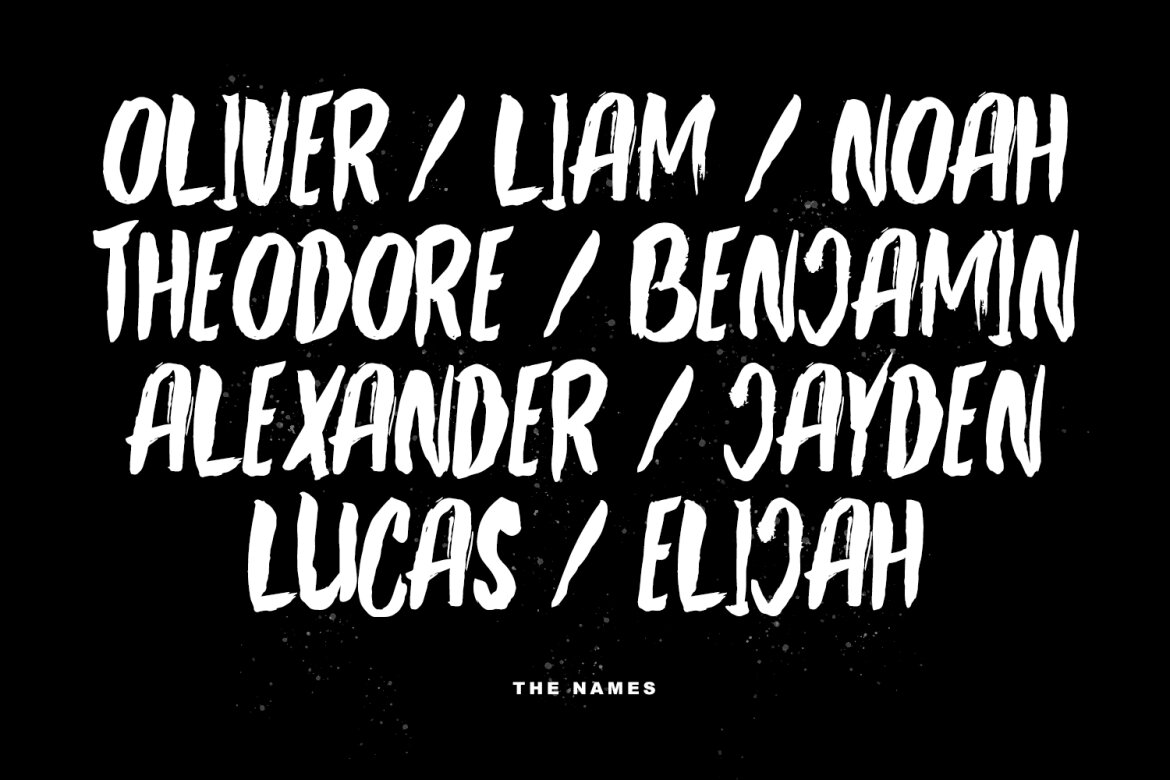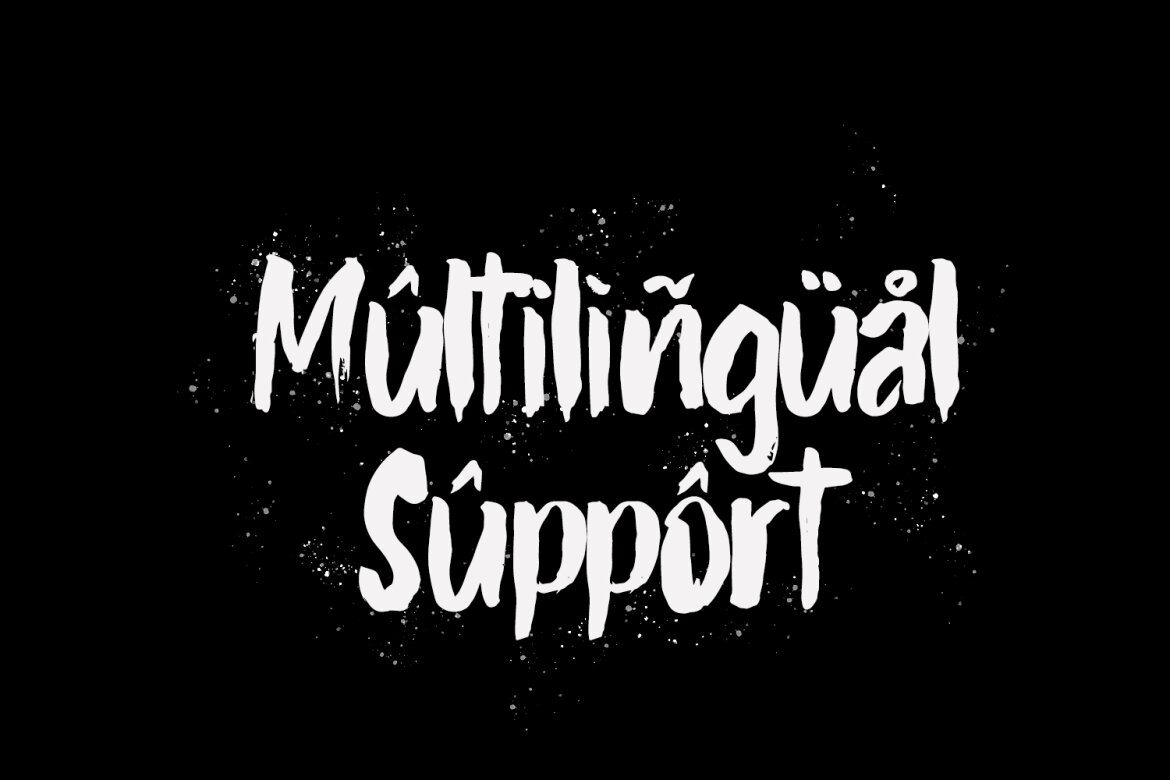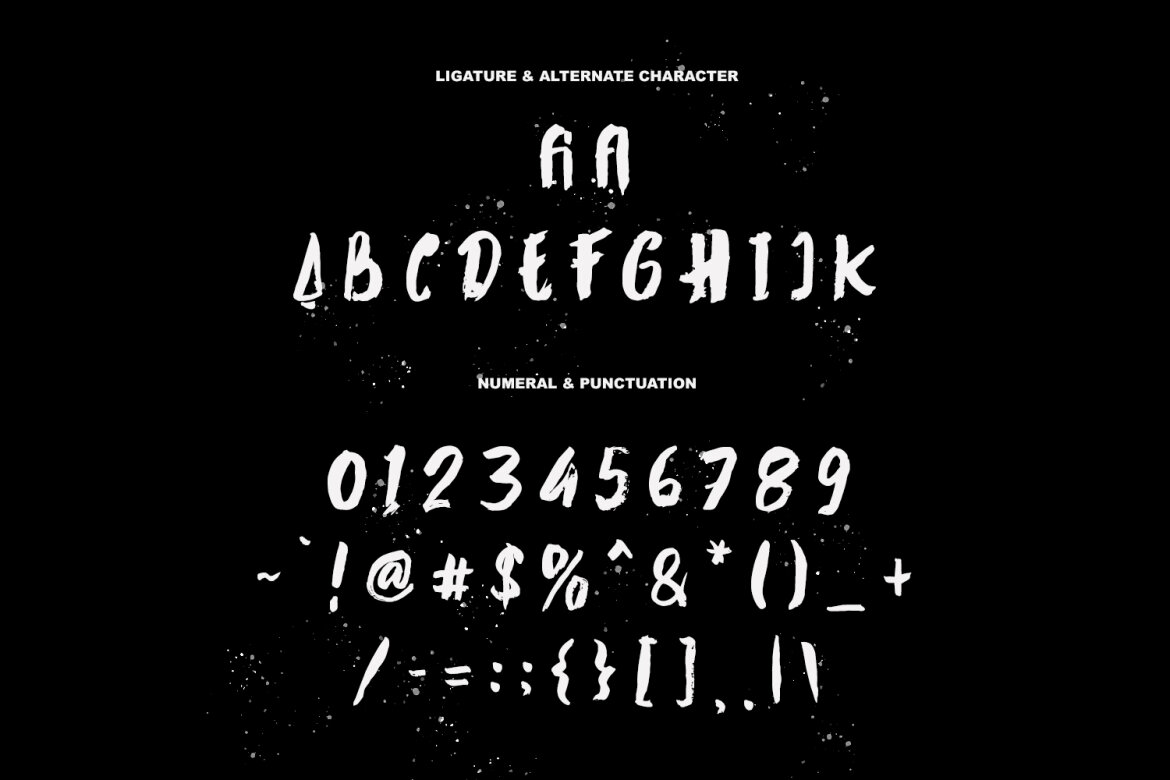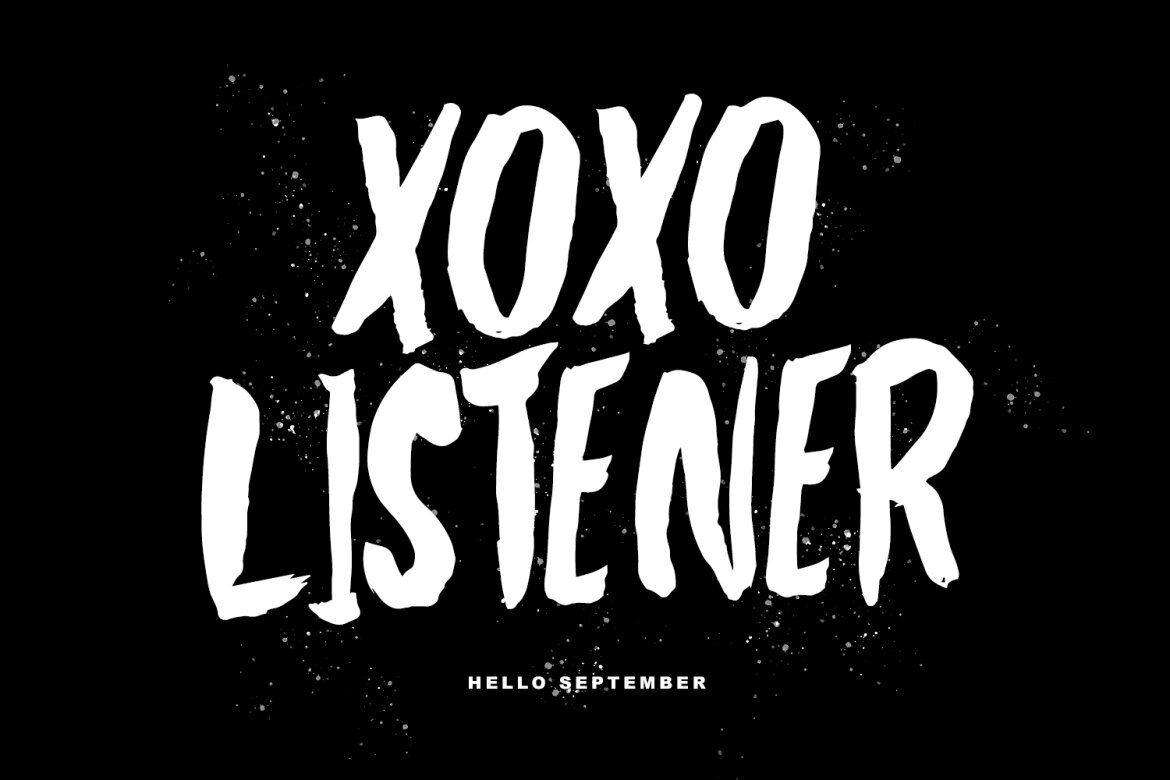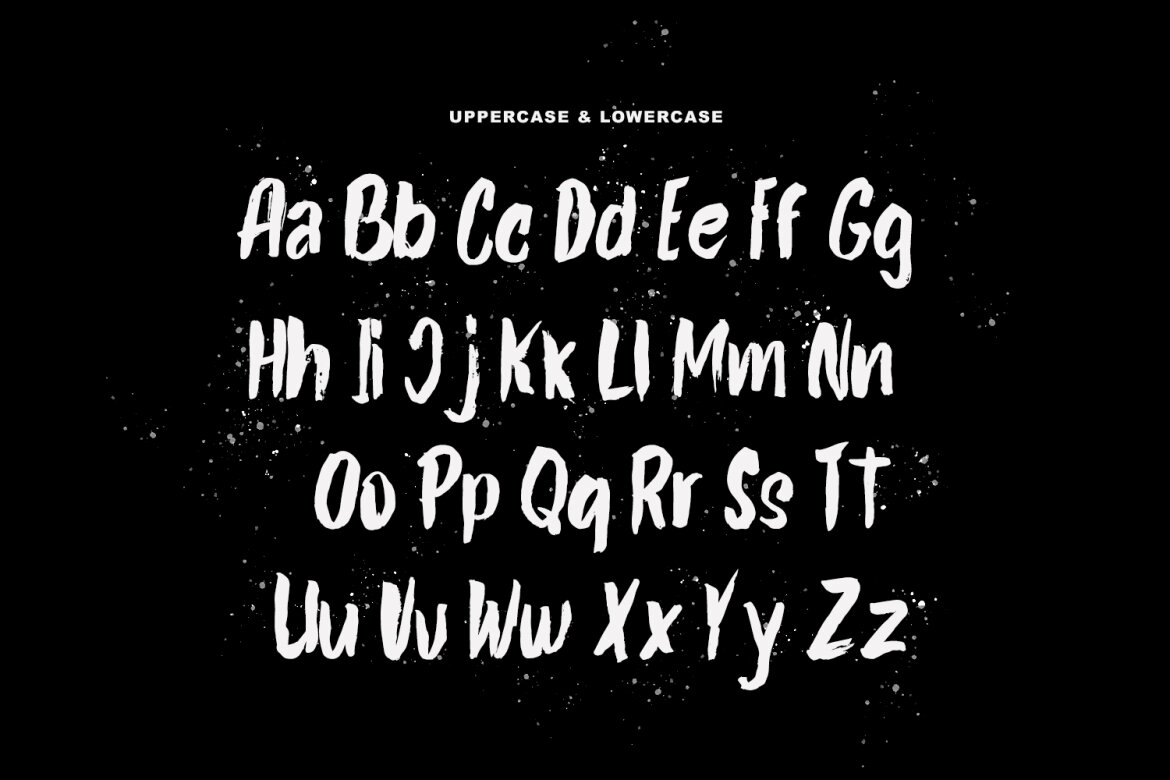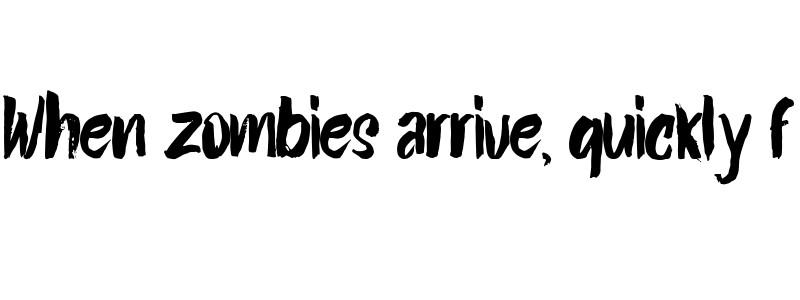
Polsick Brush Handmade FREE Font
Polsick Brush Regular
Polsick brush handmade font. This font is good for logo design, Social media, Movie Titles, Books Titles, a short text even a long text letter and good for your secondary text font with signature or script typeface. Make a stunning work with Polsick brush handmade font.